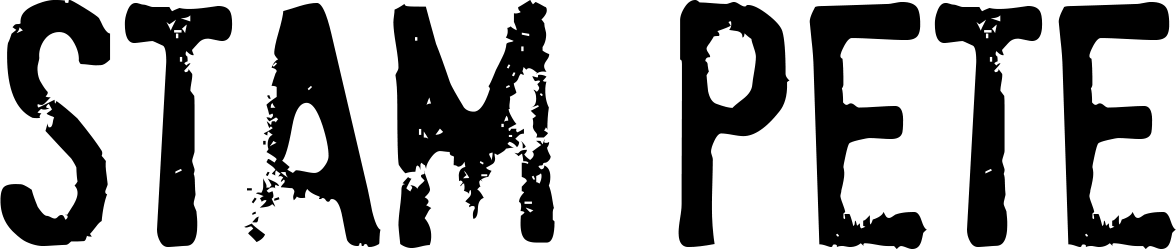
Stam Pete Font
Designed byJOEBOB graphics
If you dig a mysterious and scary look, today’s grunge punk font is the perfect thing for you! This Stam Pete has bold and faded characters with a stencil look to give off a powerful vibe to your readers. You can use it for scary movies and books, vintage event flyers and banners, gaming titles, and informal headlines. This eroded font only has capitals and a numeric set.